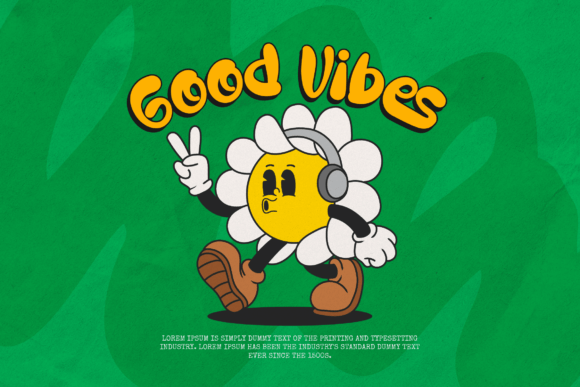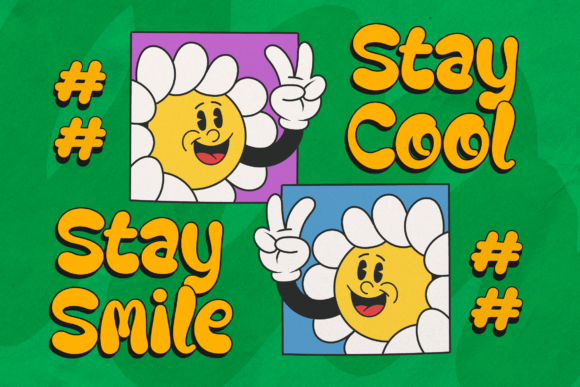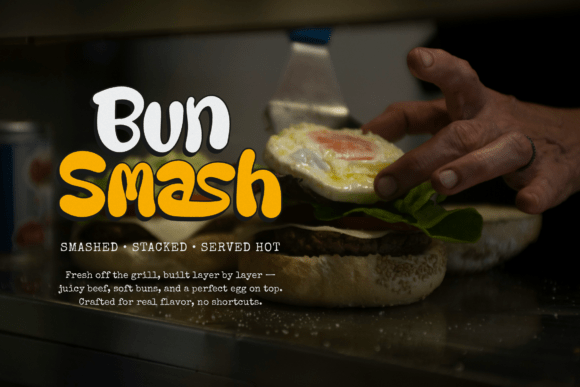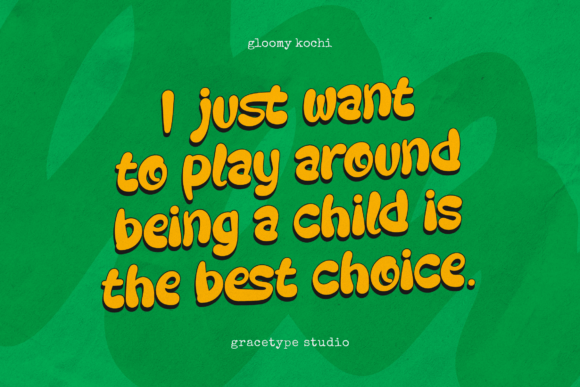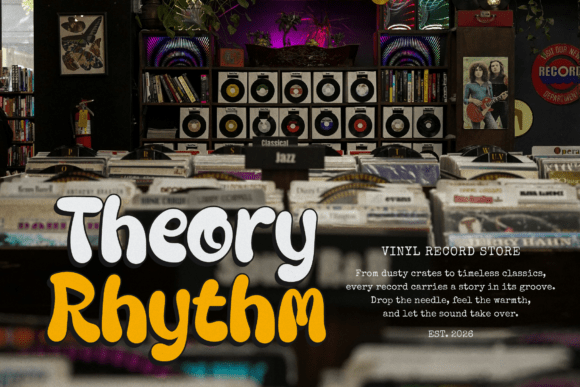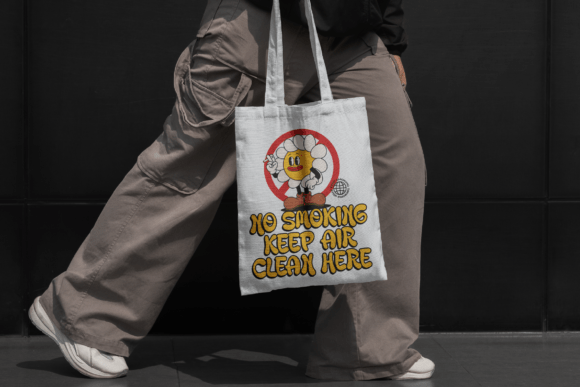
Step Back into the Psychedelic Era with Gloomy Kochi Font
Are you ready to add a touch of nostalgia to your design projects? Look no further than the Gloomy Kochi font, a soulful display typeface that captures the essence of the psychedelic era. With its ultra-thick, rounded letterforms and rhythmic, liquid-like bounce, this font is sure to transport you back to a time of free-spirited creativity and self-expression.
The Retro-and-Rebellious Spirit of Gloomy Kochi
Despite its name, Gloomy Kochi is far from gloomy. This high-contrast “bubble” style font radiates a playful energy that is sure to bring a smile to your face. Its nostalgic 70s vibe and handcrafted weight make it the perfect choice for designers and crafters looking to add a touch of vintage flair to their projects.
Design Features of Gloomy Kochi
So, what makes Gloomy Kochi so special? Here are just a few of its standout design features:
- Ultra-thick, rounded letterforms: Gloomy Kochi’s letterforms are bold and chunky, with a rounded shape that gives them a friendly, approachable feel.
- Rhythmic, liquid-like bounce: The font’s letters have a dynamic, bouncy quality that adds to their playful energy.
- Expressive terminal curls: The font’s terminal curls are expressive and fluid, adding to the overall sense of movement and energy.
- High-contrast “bubble” style: Gloomy Kochi’s high-contrast style gives it a distinctive, eye-catching look that’s sure to turn heads.
Use Cases for Gloomy Kochi
So, what can you use Gloomy Kochi for? Here are just a few ideas to get you started:
- Independent vintage apparel branding: Gloomy Kochi is the perfect choice for vintage-inspired clothing brands that want to stand out from the crowd.
- Music festival posters: The font’s psychedelic vibe makes it a natural fit for music festival posters and other promotional materials.
- Retro-themed cafe signage: Add a touch of nostalgia to your cafe or restaurant with Gloomy Kochi’s retro-inspired signage.
- High-impact “funk-and-soul” social media headers: Make your social media headers stand out with Gloomy Kochi’s bold, eye-catching style.
Why Choose Gloomy Kochi?
So, why should you choose Gloomy Kochi for your design projects? Here are just a few reasons:
- Unique and distinctive: Gloomy Kochi is a one-of-a-kind font that’s sure to help you stand out from the crowd.
- High-quality design: The font’s handcrafted weight and attention to detail make it a high-quality choice for any design project.
- Versatile: Gloomy Kochi can be used for a wide range of design projects, from branding and advertising to packaging and signage.
In conclusion, Gloomy Kochi is a soulful display typeface that’s sure to transport you back to the psychedelic era. With its ultra-thick, rounded letterforms and rhythmic, liquid-like bounce, this font is the perfect choice for designers and crafters looking to add a touch of vintage flair to their projects. Whether you’re working on independent vintage apparel branding, music festival posters, retro-themed cafe signage, or high-impact social media headers, Gloomy Kochi is the premier choice.
Get Ready to Groove with Gloomy Kochi